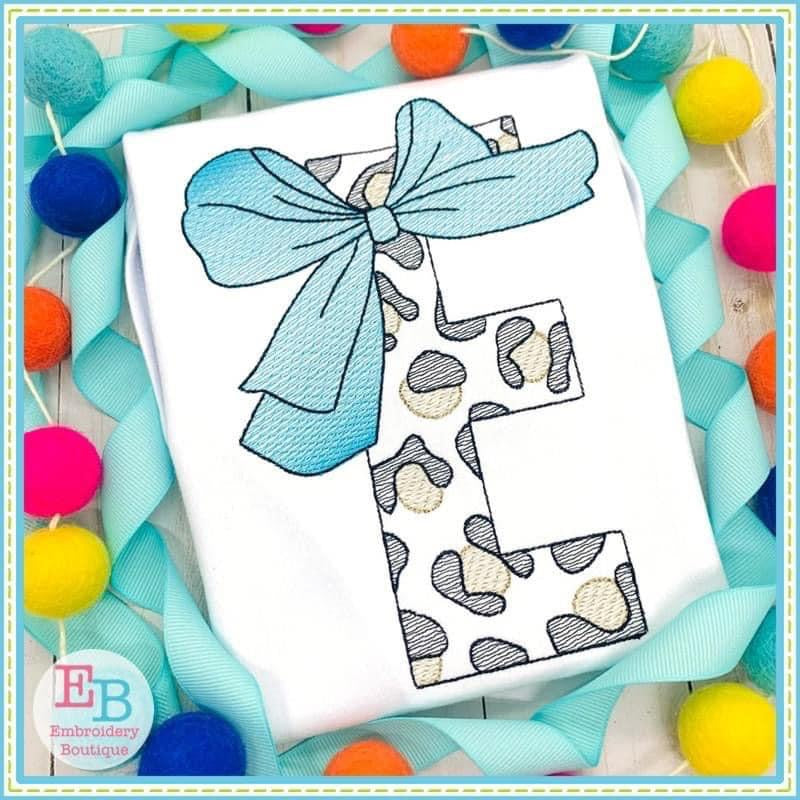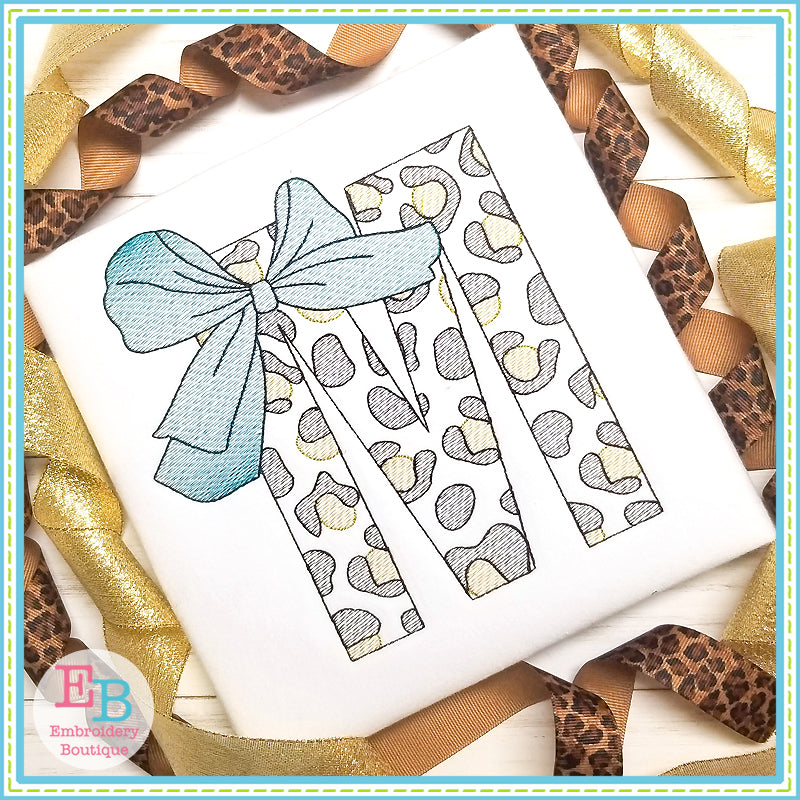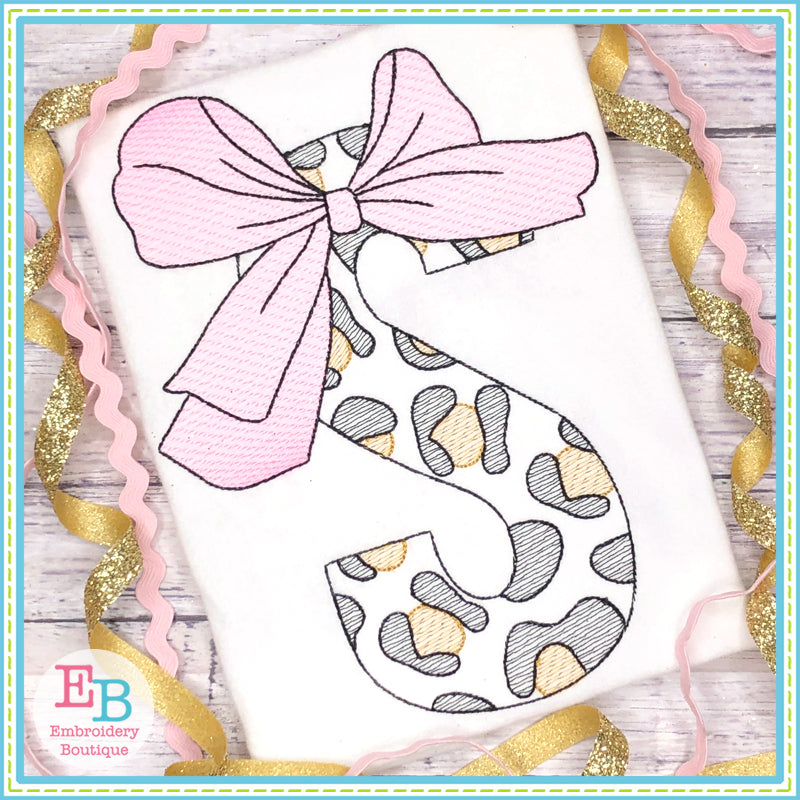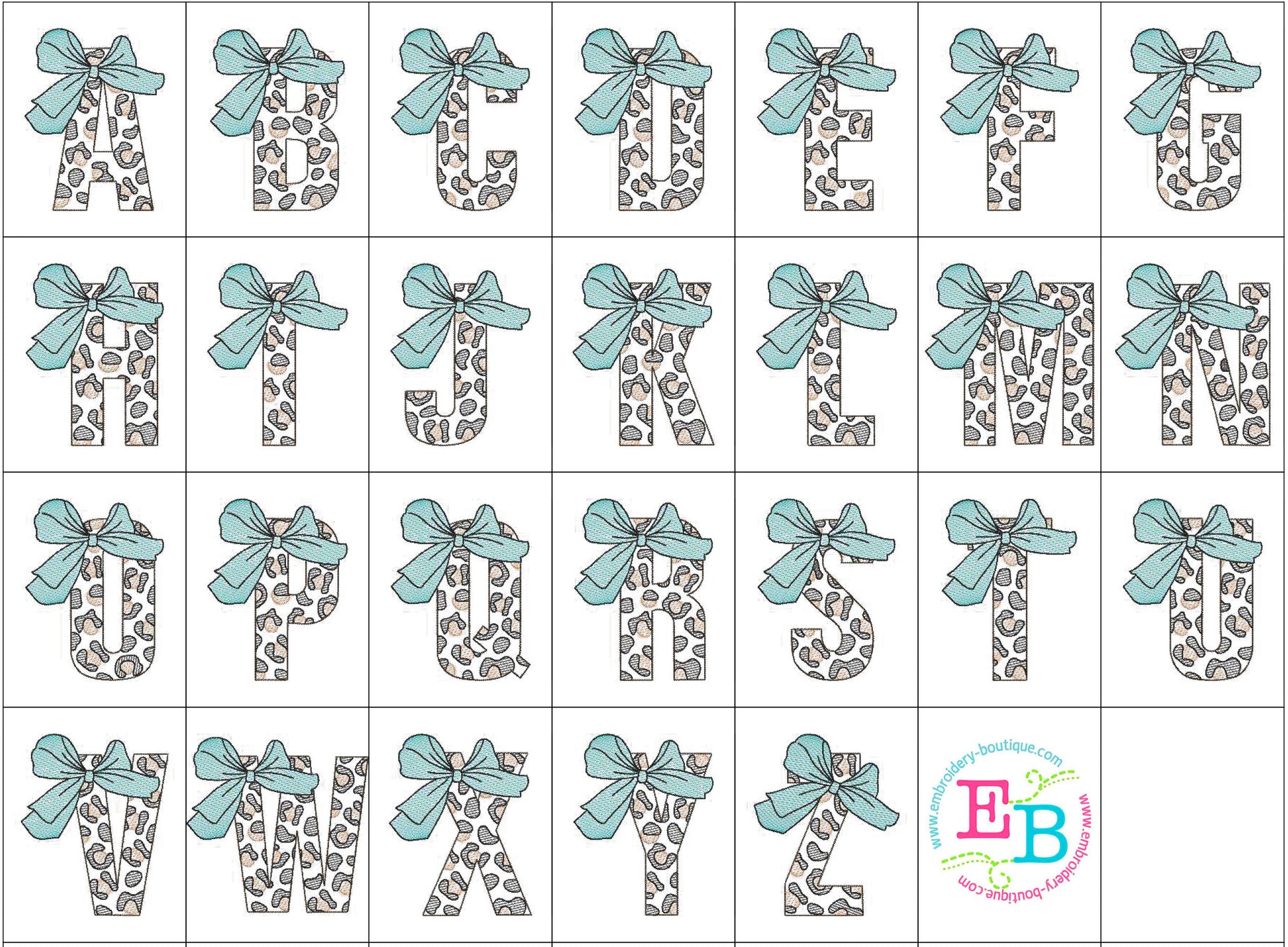
Big Bow Cheetah Sketch Embroidery Font
Big Bow Cheetah Sketch Font
5 sizes of all 26 capital applique letters included.
These are sketch stitch (not satin). Sold separately in applique format.